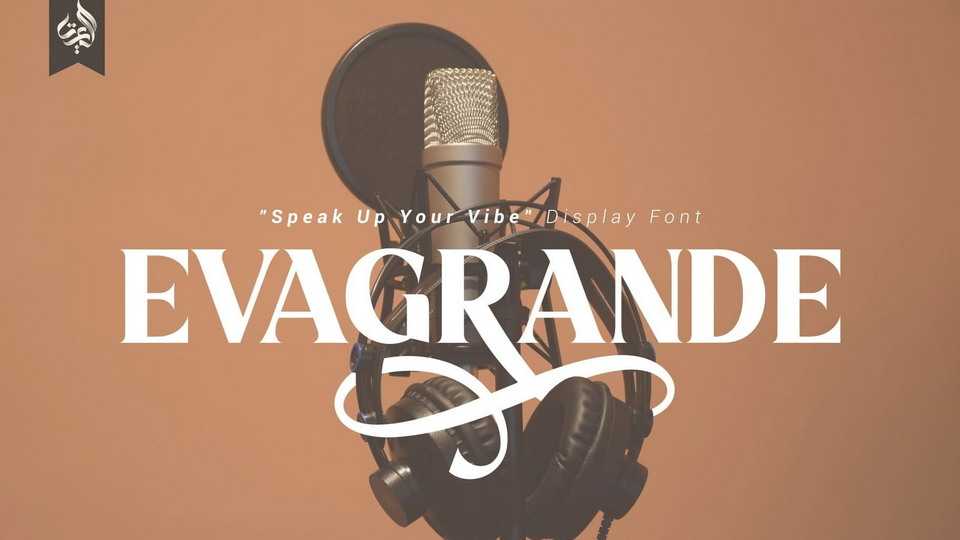
Download Evagrande, an elegant serif typeface with decorative swashes. Evagrande is a very suitable for magazine, headline, website, ads, product package and all type of design project you have.